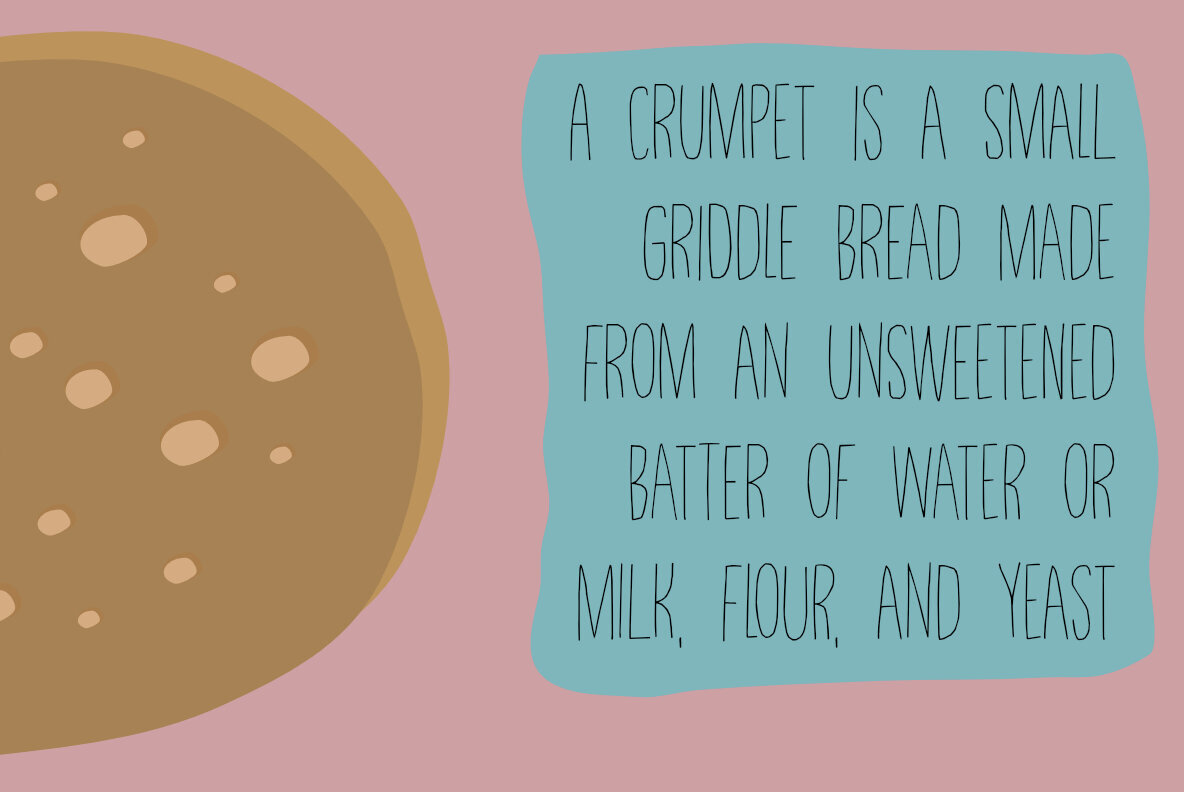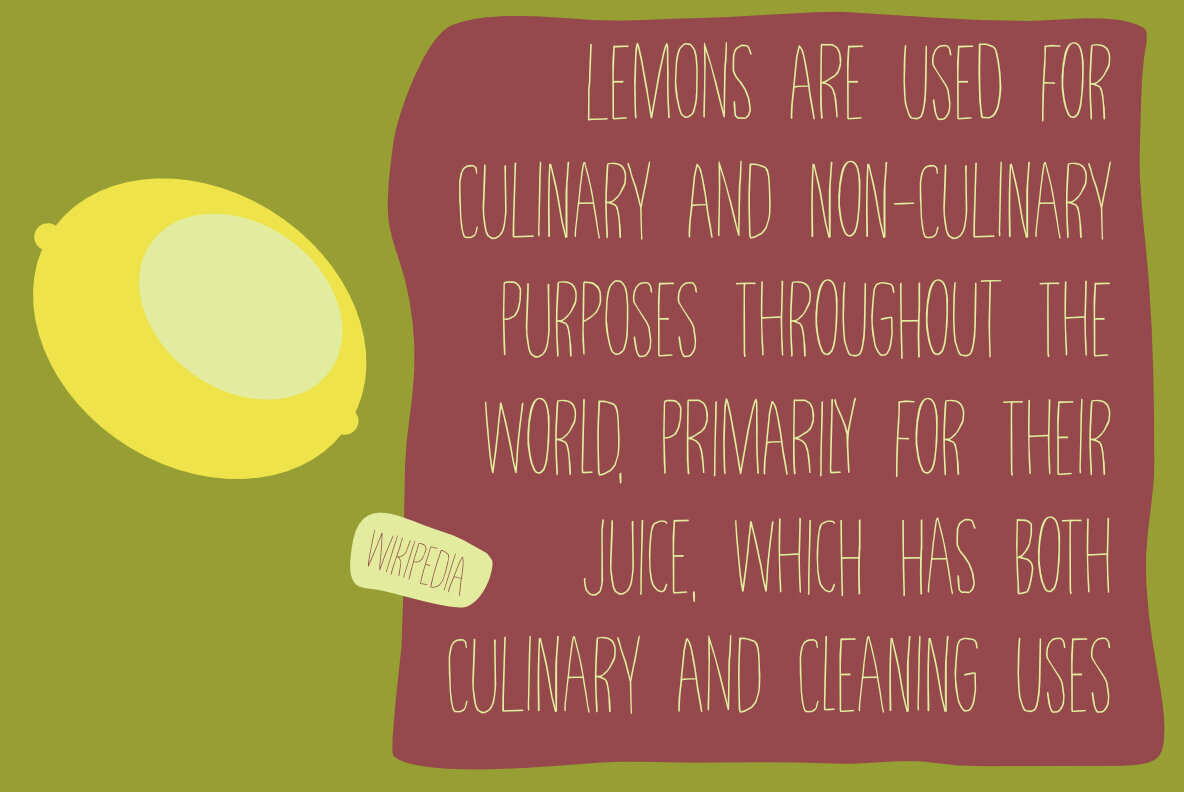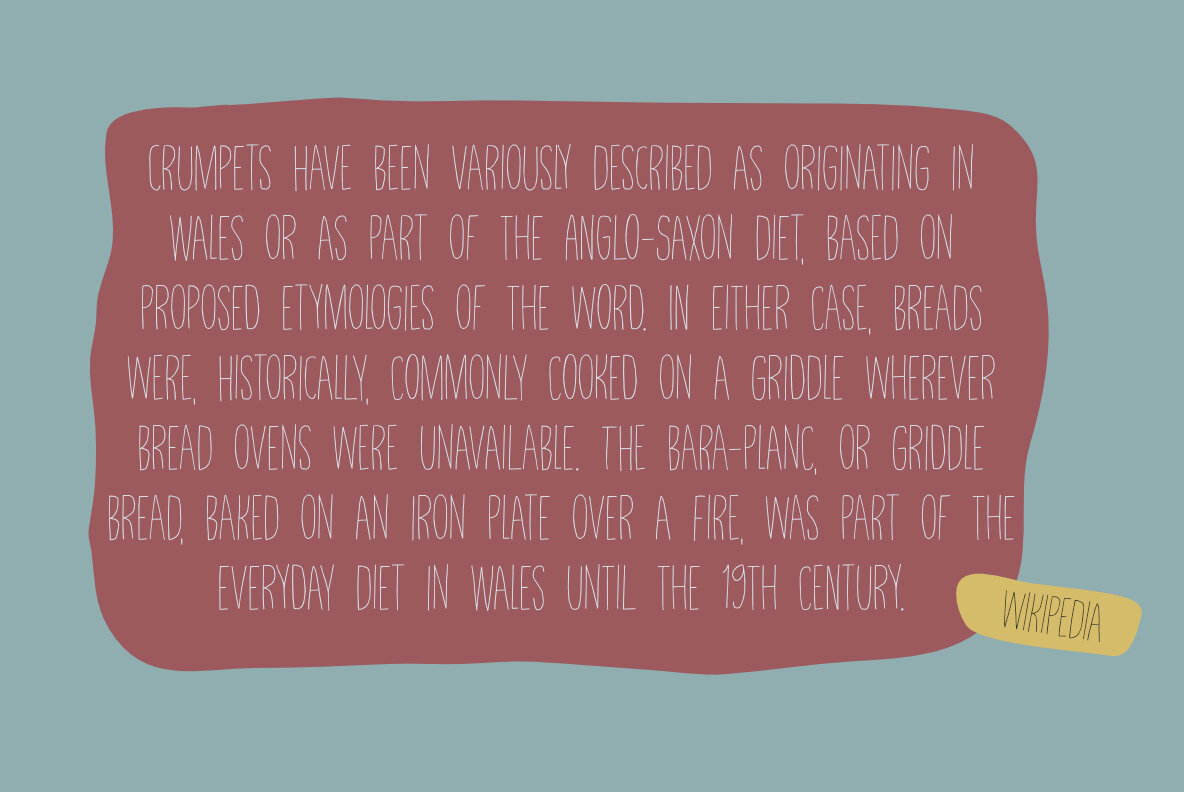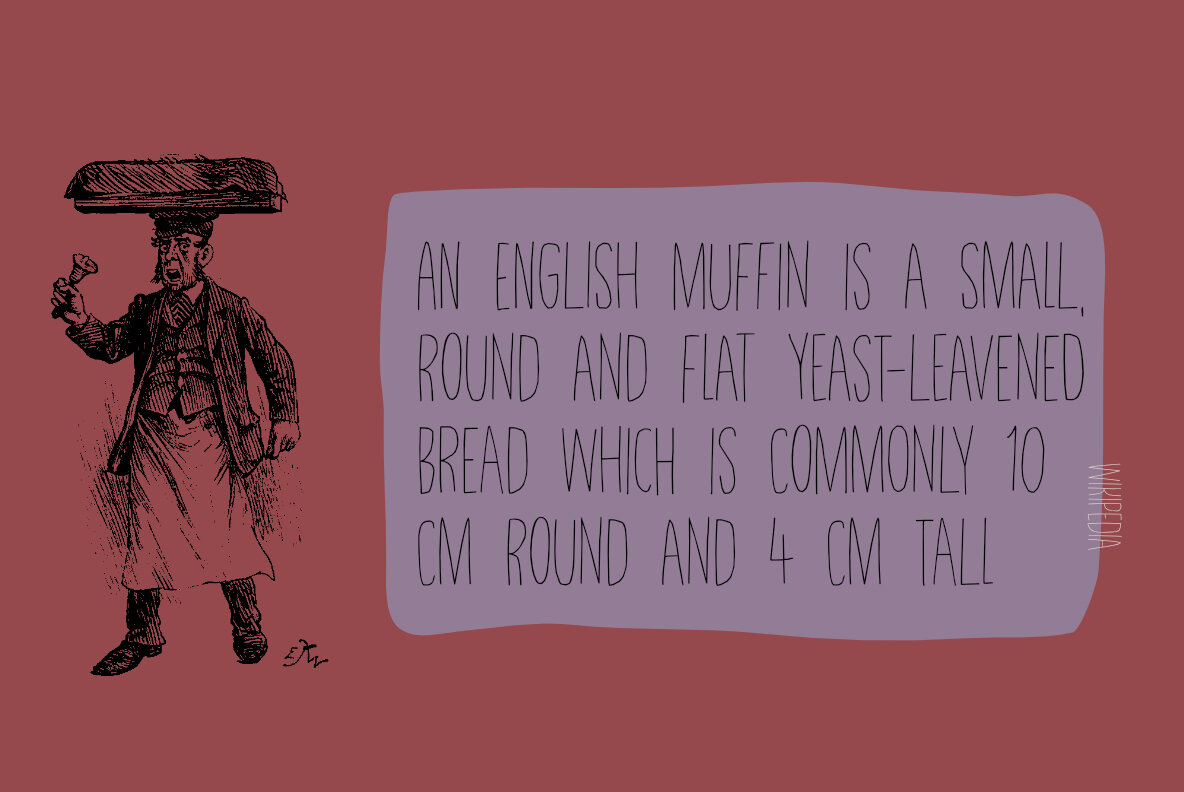
Lemony Crumpet Font
Lemony Crumpet Regular
Lemony Crumpet Italic
Lemony Crumpet is a unique handmade font inspired by the delightful idea of crumpets, small griddle breads popular in the UK, North America, Australia, and New Zealand. This font captures a sense of playfulness akin to enjoying these treats. Lemony Crumpet is characterized by its tall and thin appearance, along with a whimsical, shaky, and jumpy feel. While it may not be suitable for large poster headlines due to its delicate design, it excels in other creative applications.Lemony Crumpet: Whimsical Handmade Font
Font Characteristics
Perfect for Creative Projects
Additional Features